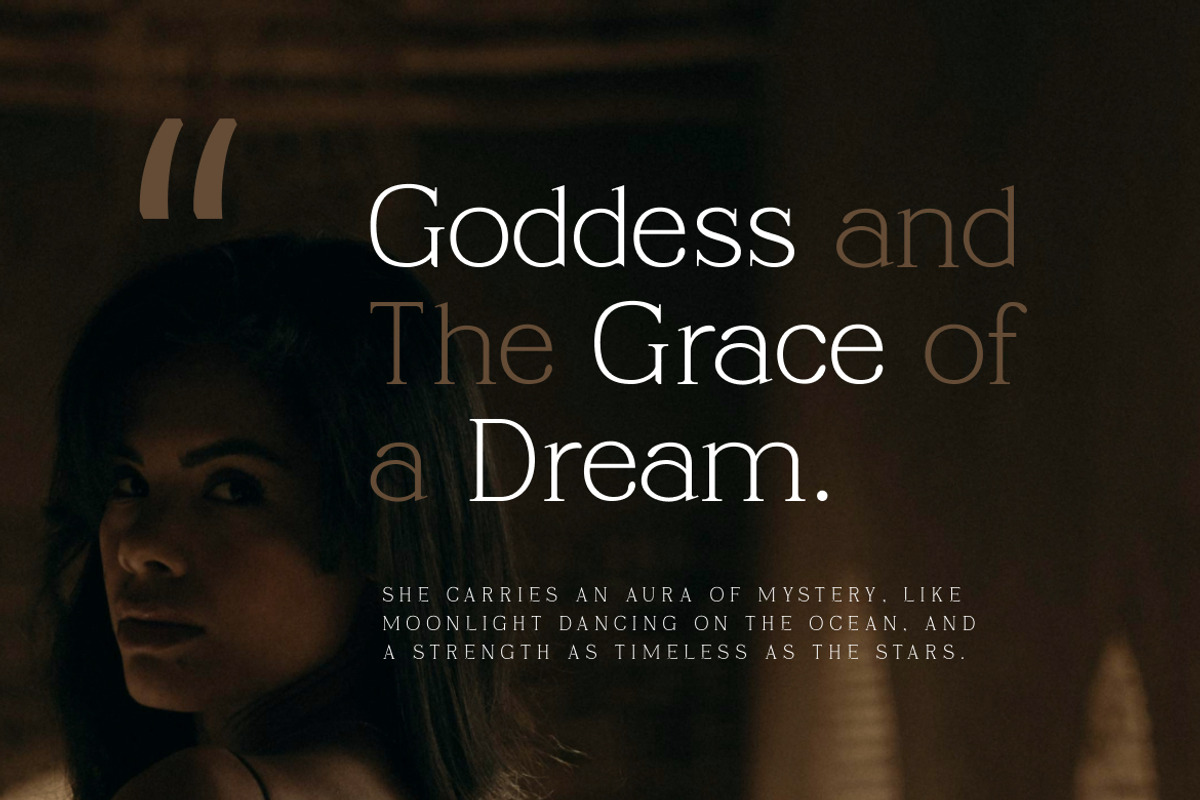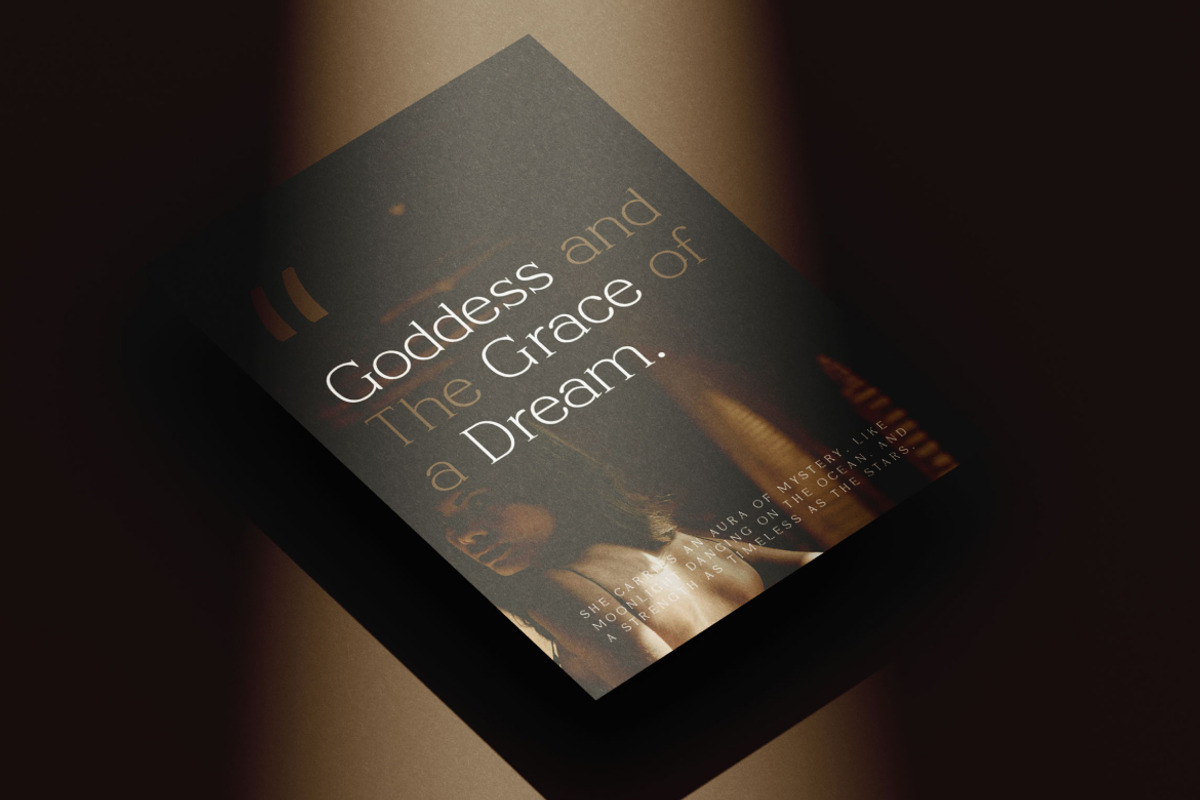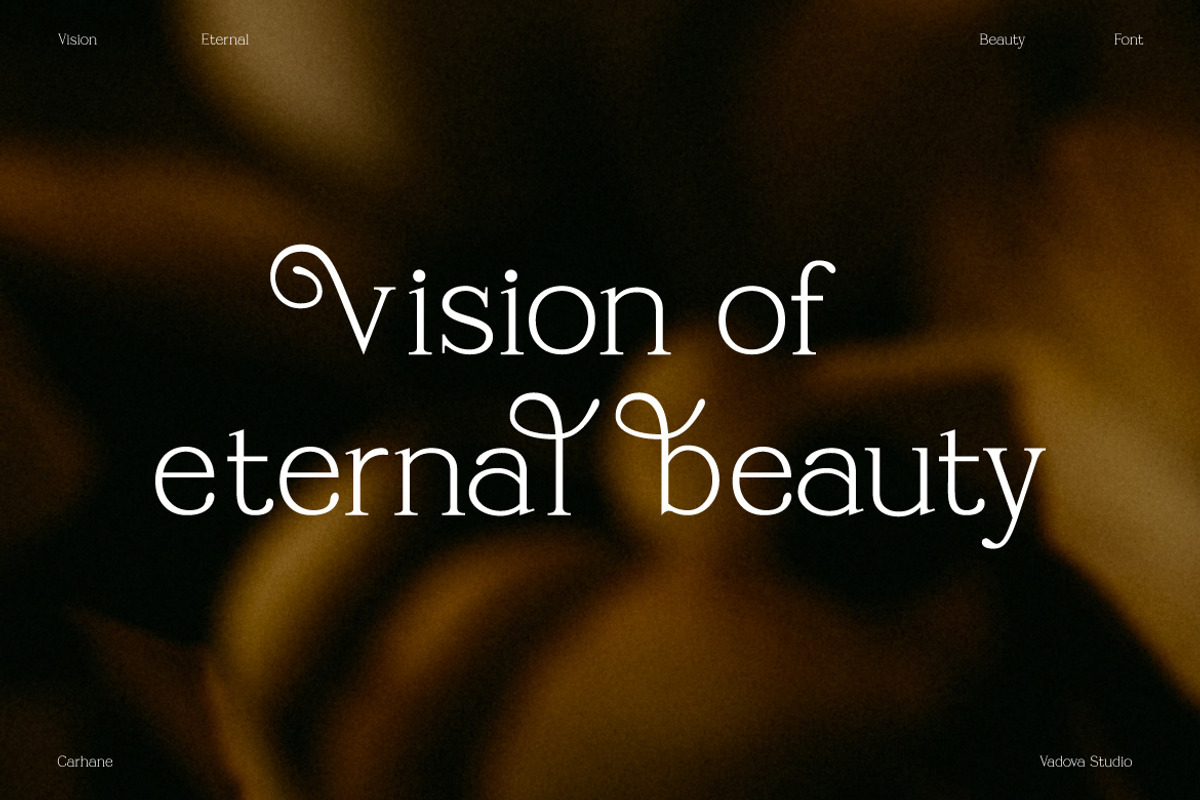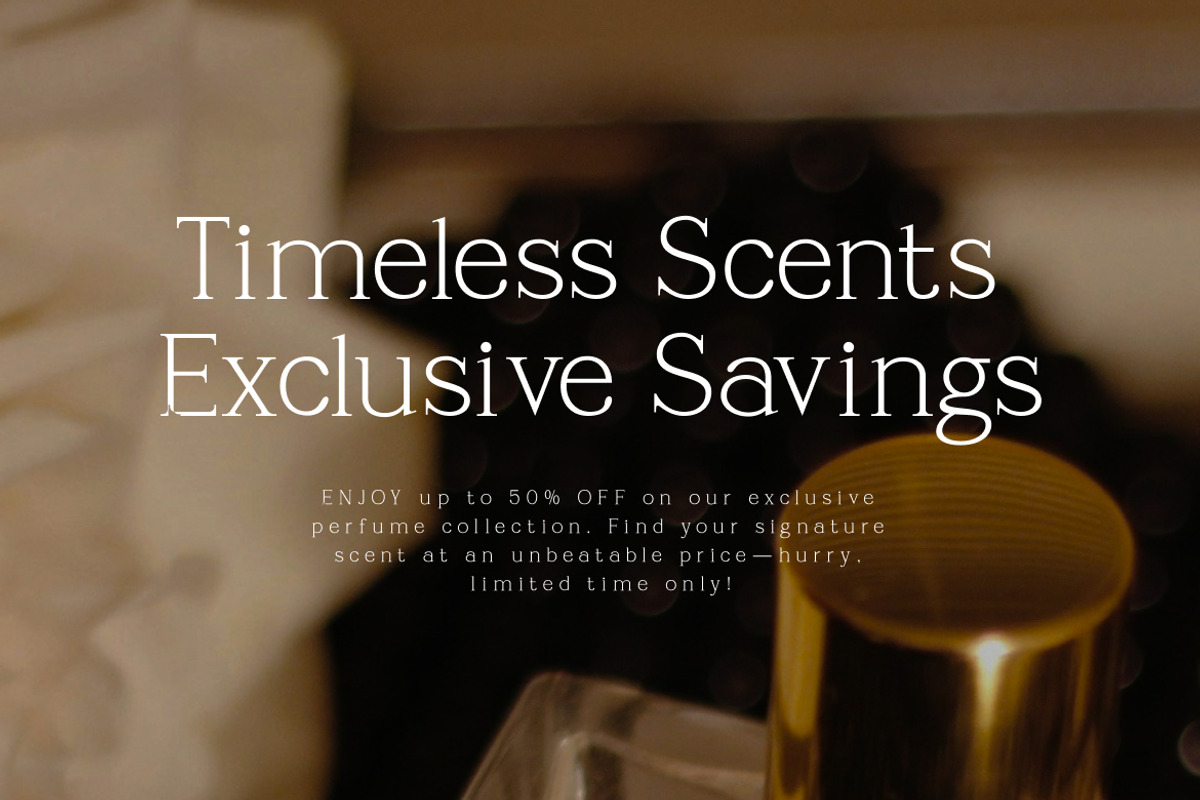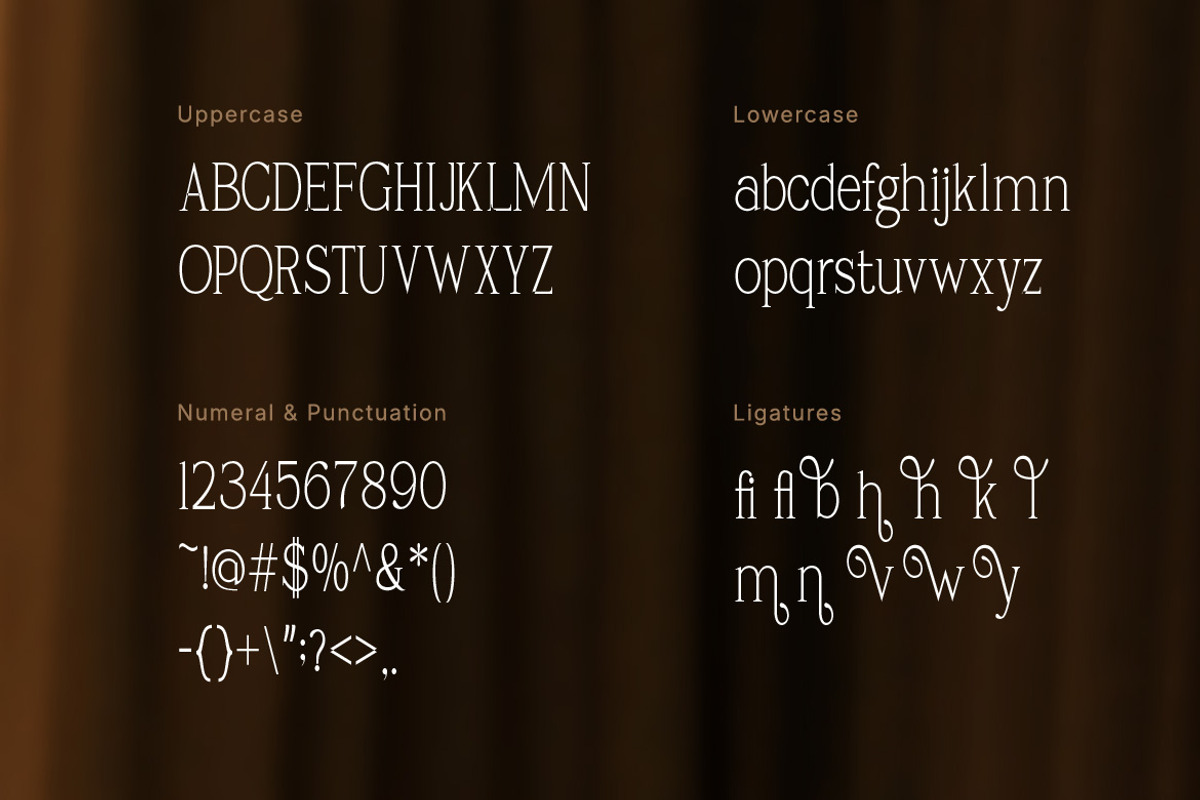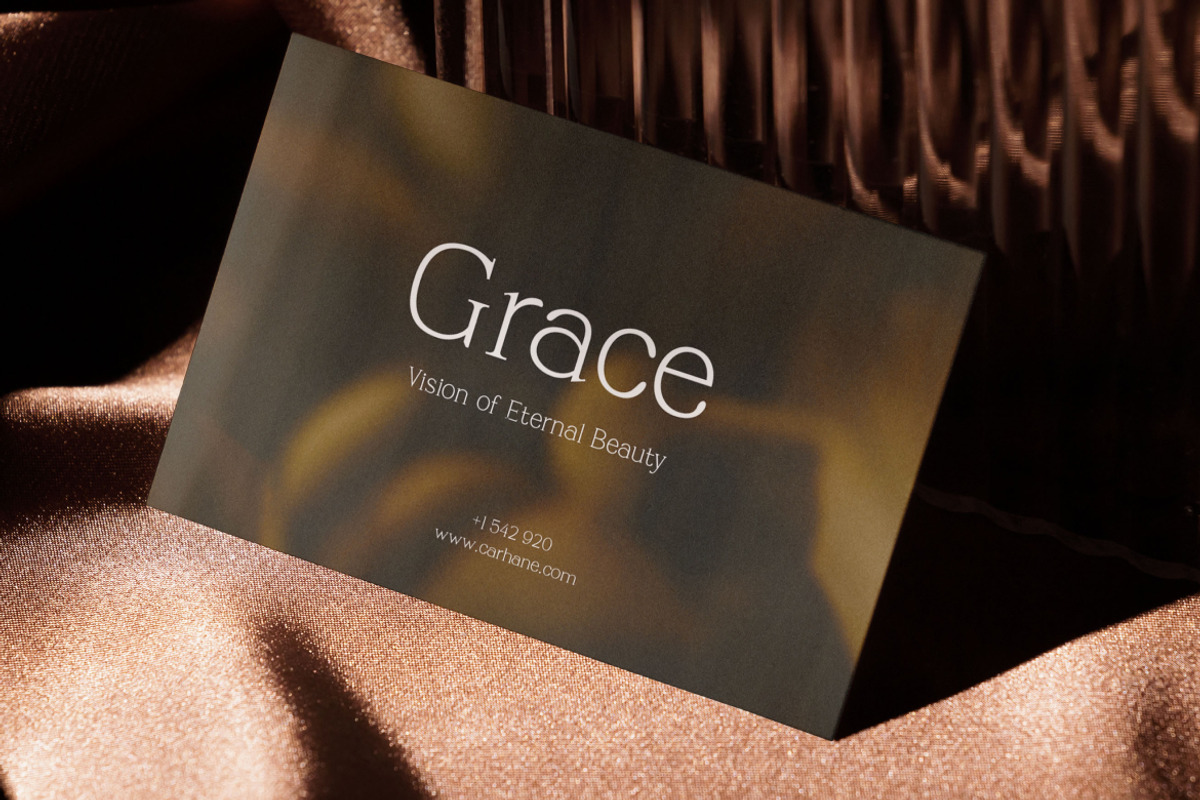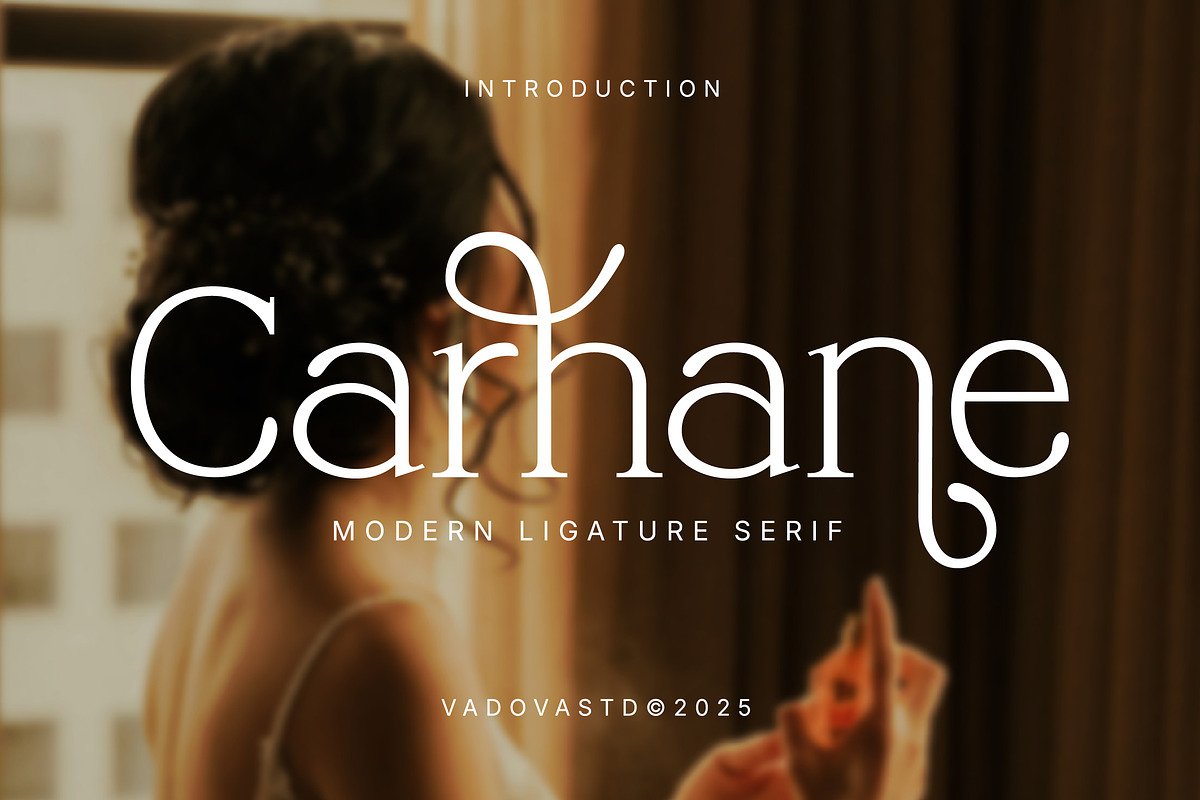
Carhane Modern Ligature Serif
Carhane is a refined modern serif font featuring elegant ligatures and decorative terminals that give it expressive character with excellent readability. This typeface includes complete uppercase and lowercase characters, numerals, punctuation, and a curated set of unique ligatures that enhance stylistic variation and typographic richness.
Carhane balances contemporary minimalism with ornamental sophistication, making it perfect for premium branding, editorial headlines, logos, packaging, and stylish text compositions. Its smooth curves, consistent stroke weight, and thoughtful spacing make it suitable for both display use and body text in professional design projects.
- Elegant modern serif structure with a clean, balanced silhouette
- Decorative ligatures add unique character and visual rhythm
- High contrast between thick and thin strokes for a luxurious feel
- Graceful terminals and smooth curves create refined sophistication
- Carefully crafted spacing for clarity in both display and text settings
- Luxury branding and upscale visual identities
- Wedding invitations, event stationery, and editorial headlines
- Fashion lookbooks and beauty product packaging
- Elegant website headers and hero sections
- High-end social media graphics and minimalist promo designs
Refine your visuals with graceful charm Carhane brings timeless elegance to every design